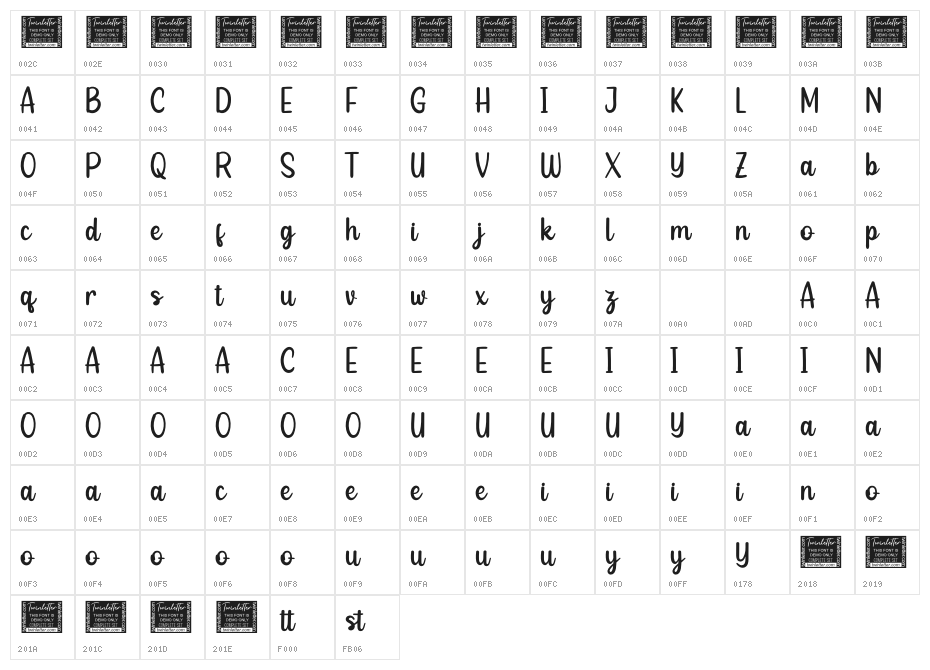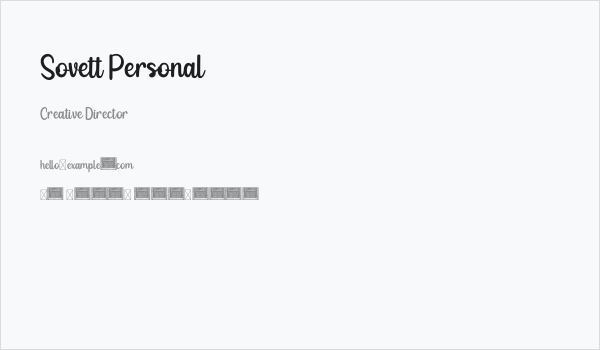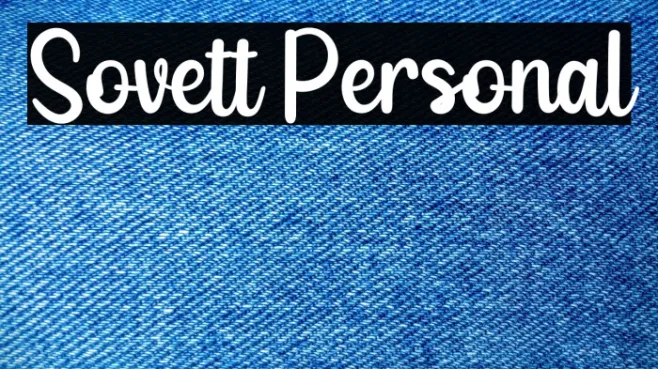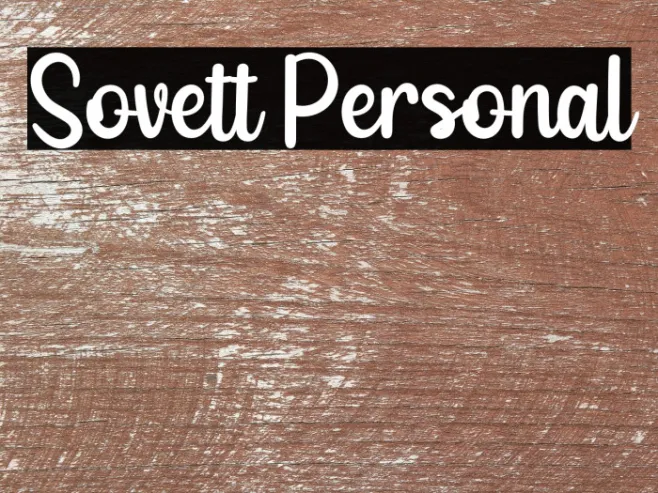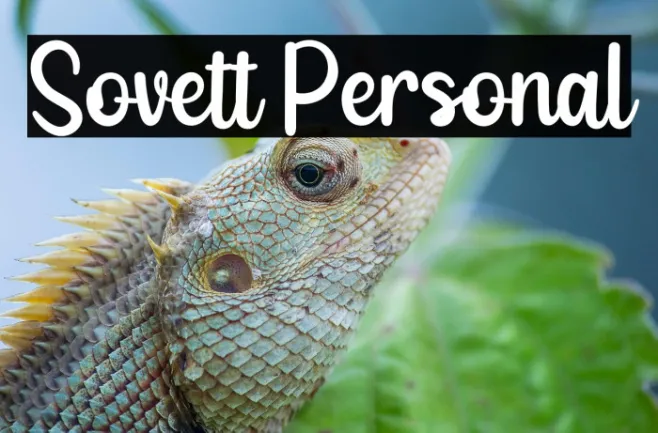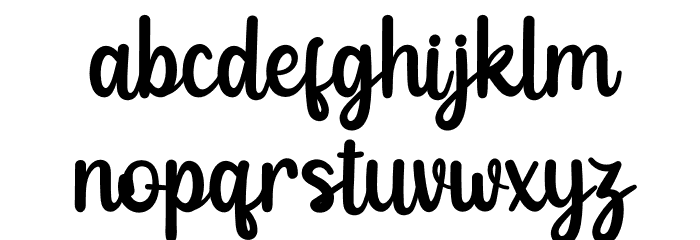
Sovett Personal Font
Sovett Personal Description
This font features a playful and casual handwritten style, characterized by its smooth, rounded edges and consistent stroke width. The uppercase letters are tall and slightly narrow, giving a sense of elegance and modernity. The lowercase letters maintain a cohesive flow, with some characters featuring subtle loops and curves that enhance its handwritten appeal. The font's overall appearance is friendly and approachable, making it suitable for a variety of creative projects. Its legibility is maintained across different sizes, ensuring versatility in use.
| Overall Style | Casual, Friendly |
| Proposed Projects | Ideal for greeting cards, invitations, personal branding, and social media graphics. |